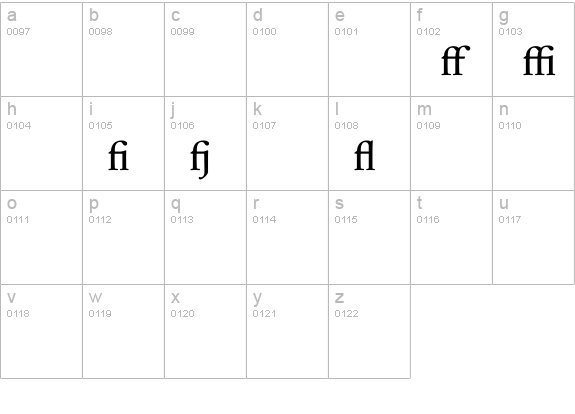
RenardNo2-RomanLig is a stunning font that exudes elegance and sophistication. With its perfectly balanced letterforms and graceful curves, this font is sure to elevate any design project. The clean and timeless aesthetic of RenardNo2-RomanLig makes it suitable for a wide range of applications, from branding and packaging to editorial and web design. This font offers a unique blend of classic Roman lettering with a contemporary twist, resulting in a typeface that is both versatile and distinctive. Its legibility and clarity make it ideal for both small and large text sizes, ensuring that your message is conveyed with utmost clarity and impact. One of the best features of RenardNo2-RomanLig is that it is available for free! You can easily download this font from FontsMarket.com, a reputable platform for high-quality fonts. This means that you can enjoy the beauty and versatility of RenardNo2-RomanLig without any cost. Whether you are a professional designer or a casual enthusiast, this font is a must-have addition to your collection. Don't miss out on the opportunity to enhance your design projects with the timeless elegance of RenardNo2-RomanLig. Download it for free today at FontsMarket.com and experience the seamless blend of classic and contemporary that this font has to offer.